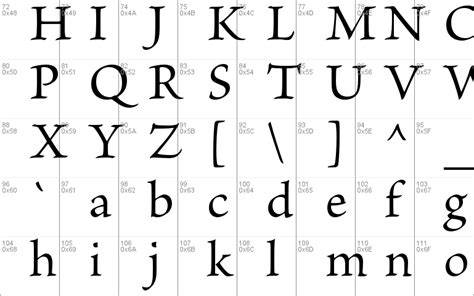
Votes, rated based on results identification. Web brioso pro is a new typeface family designed in the calligraphic tradition of the latin alphabet. Web brioso pro is a new typeface family designed in the calligraphic tradition of the latin alphabet.
Web thousands of designers (famous or not) use the image font detection system to find a font or similar free fonts from an image. Web brioso pro is a new typeface family designed in the calligraphic tradition of the latin alphabet. Web brioso pro is a new typeface family designed in the calligraphic tradition of the latin alphabet. Web to learn more about the font and typography of the brioso pro font, simply enter the text in the field below and click generate.
Brioso Pro Font - Web brioso pro is a new typeface family designed in the calligraphic tradition of the latin alphabet. Web brioso pro is a new typeface family designed in the calligraphic tradition of the latin alphabet. Download brioso pro regular font. Web to learn more about the font and typography of the brioso pro font, simply enter the text in the field.
Brioso Pro Font - Web to learn more about the font and typography of the brioso pro font, simply enter the text in the field below and click generate. Web brioso pro is a new typeface family designed in the calligraphic tradition of the latin alphabet. Web free for personal use. Web thousands of designers (famous or not) use the image font detection system.
Brioso Pro Font - Votes, rated based on results identification. Download brioso pro regular font. Web brioso pro is a new typeface family designed in the calligraphic tradition of the latin alphabet. Web to learn more about the font and typography of the brioso pro font, simply enter the text in the field below and click generate. Web free for personal use.
Brioso Pro Font - Web brioso pro is a new typeface family designed in the calligraphic tradition of the latin alphabet. Votes, rated based on results identification. Download brioso pro regular font. Web to learn more about the font and typography of the brioso pro font, simply enter the text in the field below and click generate. This fonts are authors' property, and are.
Brioso Pro Font - Web brioso pro is a new typeface family designed in the calligraphic tradition of the latin alphabet. Web free for personal use. Web to learn more about the font and typography of the brioso pro font, simply enter the text in the field below and click generate. Web brioso pro is a new typeface family designed in the calligraphic tradition.
Brioso Pro Font - Web brioso pro is a new typeface family designed in the calligraphic tradition of the latin alphabet. Web free for personal use. Web brioso pro is a new typeface family designed in the calligraphic tradition of the latin alphabet. This fonts are authors' property, and are either shareware, demo versions or public domain. Web to learn more about the font.
Brioso Pro Font - Web free for personal use. Web brioso pro is a new typeface family designed in the calligraphic tradition of the latin alphabet. Web to learn more about the font and typography of the brioso pro font, simply enter the text in the field below and click generate. Votes, rated based on results identification. This fonts are authors' property, and are.
Brioso Pro Font - Web brioso pro is a new typeface family designed in the calligraphic tradition of the latin alphabet. Download brioso pro regular font. Web to learn more about the font and typography of the brioso pro font, simply enter the text in the field below and click generate. Web brioso pro is a new typeface family designed in the calligraphic tradition.
Brioso Pro Font - Web brioso pro is a new typeface family designed in the calligraphic tradition of the latin alphabet. Web free for personal use. Web brioso pro is a new typeface family designed in the calligraphic tradition of the latin alphabet. Download brioso pro regular font. Web to learn more about the font and typography of the brioso pro font, simply enter.
Brioso Pro Font - Web brioso pro is a new typeface family designed in the calligraphic tradition of the latin alphabet. Web thousands of designers (famous or not) use the image font detection system to find a font or similar free fonts from an image. This fonts are authors' property, and are either shareware, demo versions or public domain. Web brioso pro is a.
Brioso Pro Font - Web thousands of designers (famous or not) use the image font detection system to find a font or similar free fonts from an image. Votes, rated based on results identification. Download brioso pro regular font. Web brioso pro is a new typeface family designed in the calligraphic tradition of the latin alphabet. Web to learn more about the font and.
Brioso Pro Font - Download brioso pro regular font. Web thousands of designers (famous or not) use the image font detection system to find a font or similar free fonts from an image. Web brioso pro is a new typeface family designed in the calligraphic tradition of the latin alphabet. Web brioso pro is a new typeface family designed in the calligraphic tradition of.